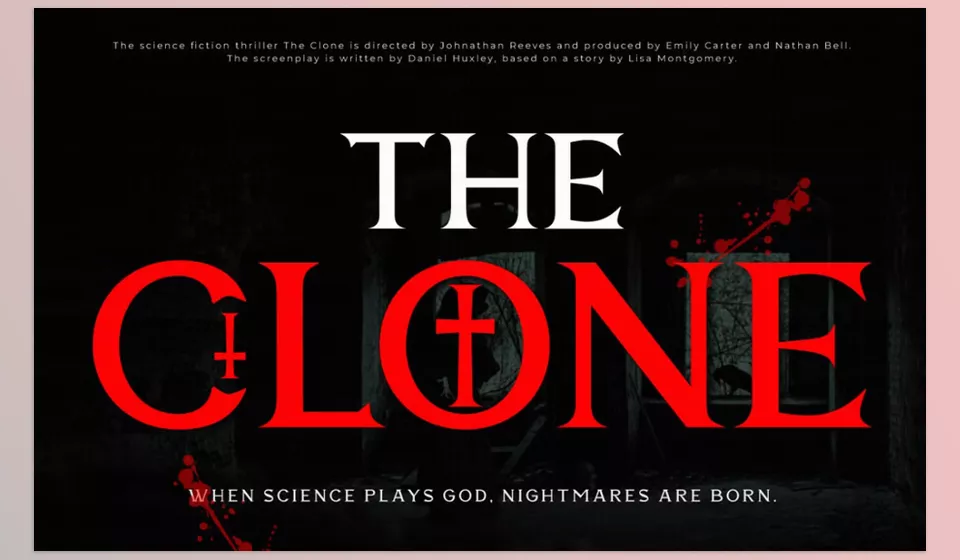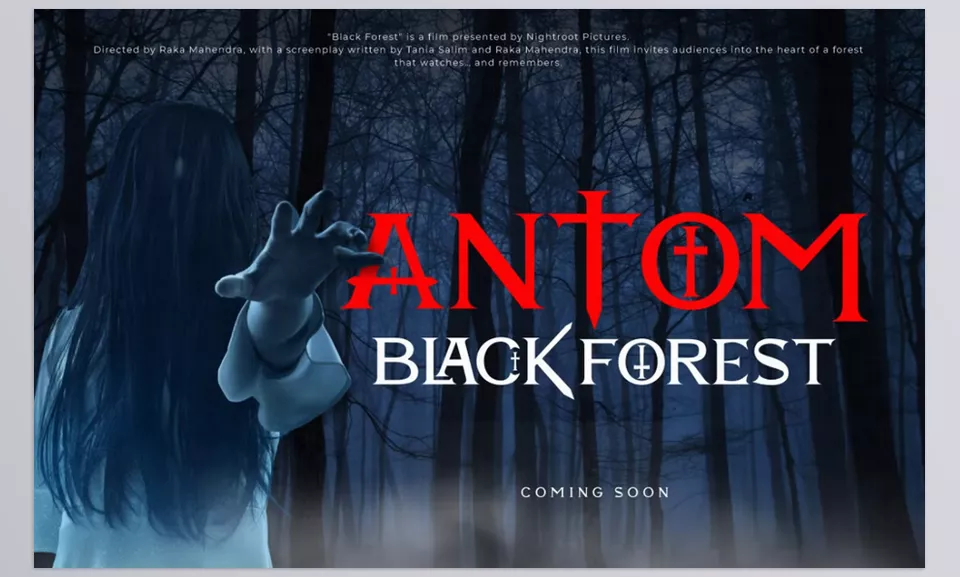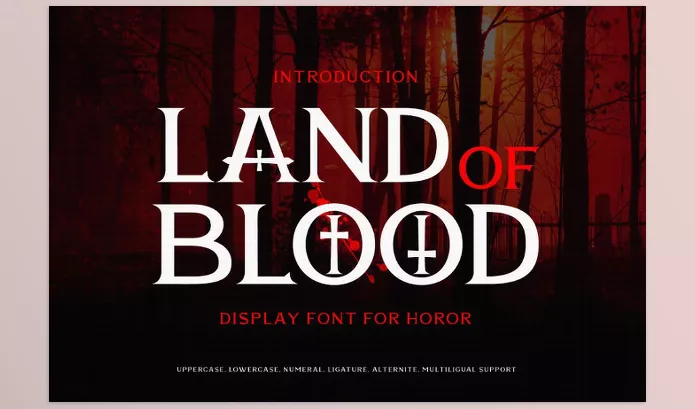
Land Of Blood Horror Movie Font is a spine-chilling typeface that embodies suspense and horror simultaneously. Perfect for book covers, chilling movie posters, and unsettling titles filled with dread, this font possesses your ideal fit for dramatic touch. Its blood splatter appearance showcases the brush strokes evocative of fear.
twinstd – Land Of Blood Horror Movie Font Features
Preview Land Of Blood Horror Movie Font
Image 1: Dive into the world of fear and suspense with this unique typeface.
Land Of Blood Horror Movie Font - Dive into the world of fear and suspense with this unique typeface.
Image 2: Transform your horror-themed projects with a font that screams attention.
Land Of Blood Horror Movie Font - Transform your horror-themed projects with a font that screams attention.